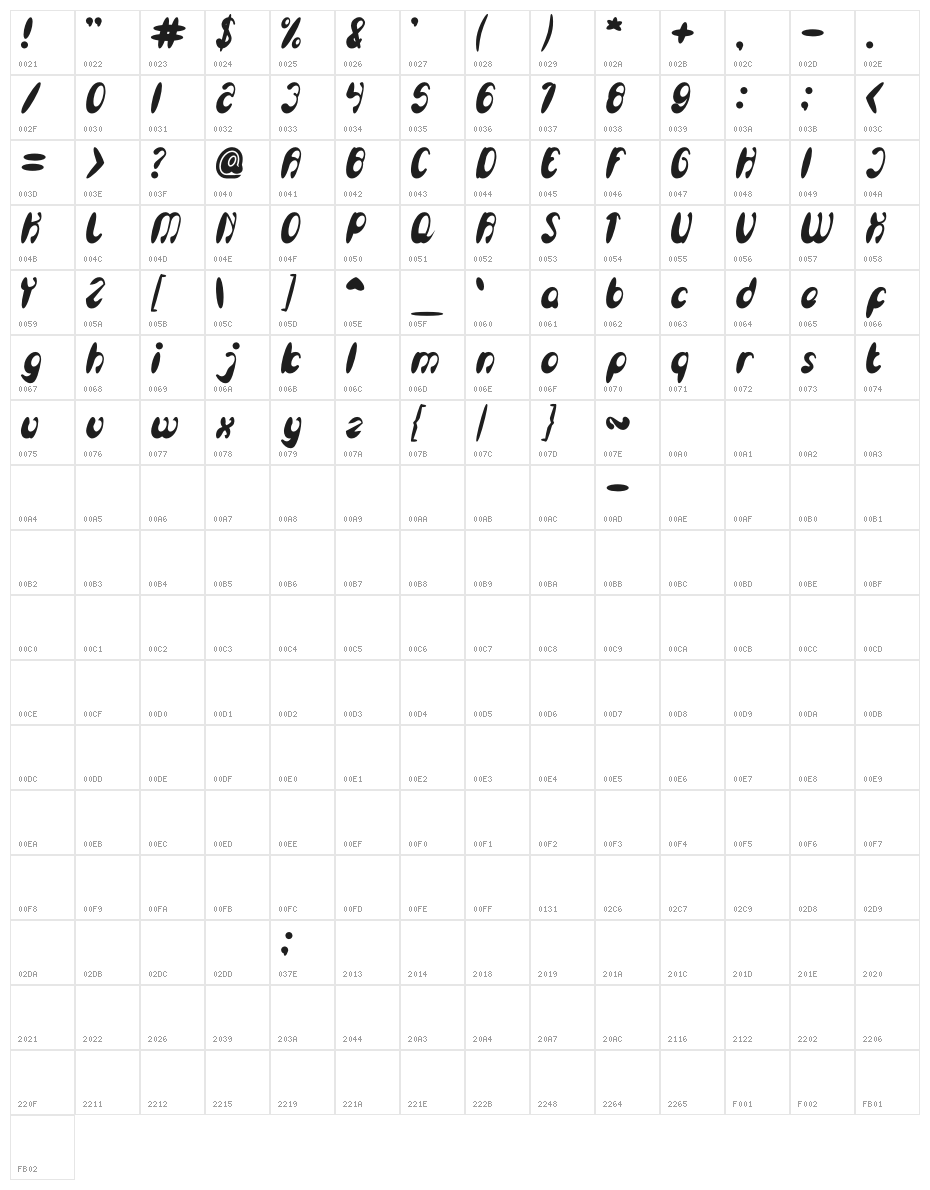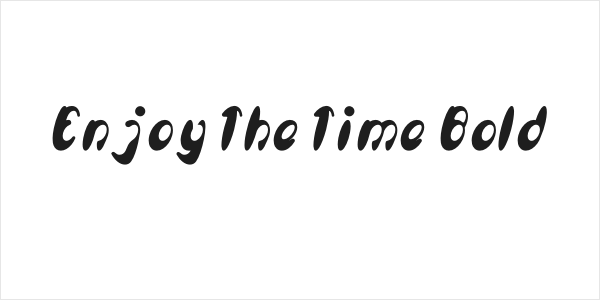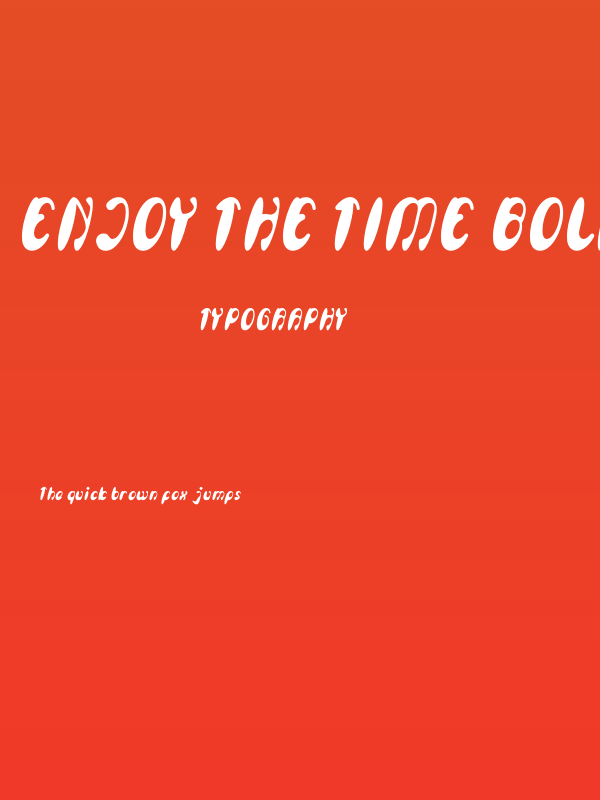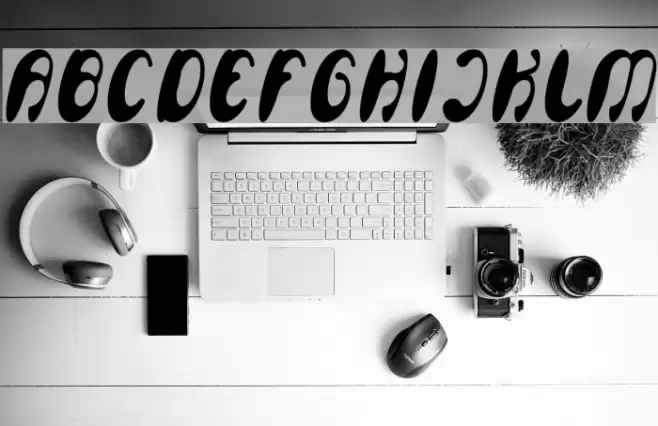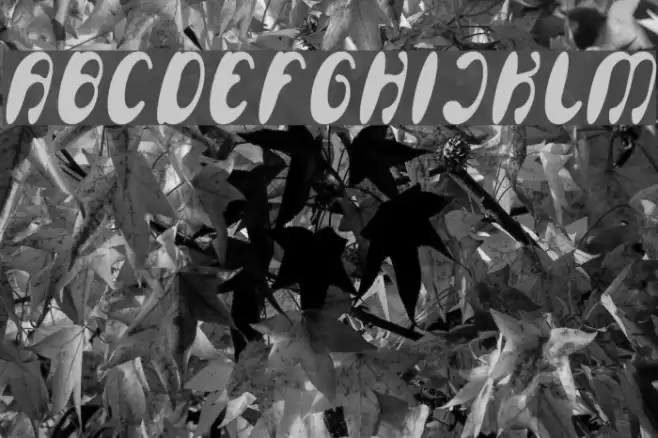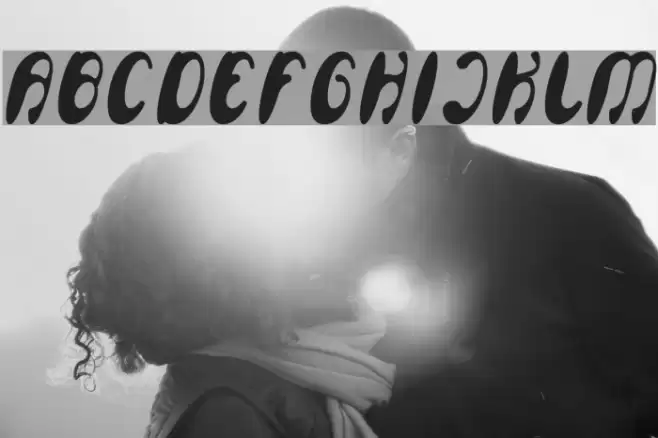
Enjoy The Time Bold Font
Enjoy The Time Bold Description
This font features a playful and bold style with rounded, smooth edges that give it a friendly and approachable appearance. The characters are slightly slanted, adding a dynamic and energetic feel. The strokes are thick and consistent, providing a strong visual impact. The overall design is reminiscent of handwritten script, yet maintains a structured and cohesive form. The uppercase and lowercase letters are well-balanced, and the numerals are clear and distinct. Special characters are included, enhancing its versatility for various design needs.
| Overall Style | Playful, Modern |